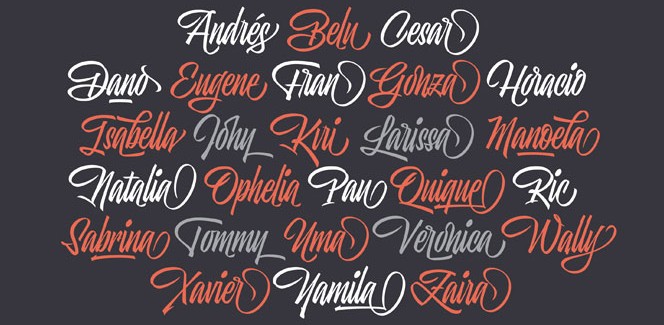
Skill font
Skill is the latest font released by the Argentine master of type design Maximiliano Sproviero. Once again it is like a lecture on the type design with the topic this time being brush calligraphy. Maximiliano uses his great experience to present us with a brush script that is a proof of the fact that the perfect results come with plenty of practice. The most important thing about this script is that it captures the soul of the pointed brush calligraphy and the freedom it gives. And this freedom comes together with a lot of passion, movement and expressiveness. On top of that, Skill font is as sweet, sexy and wild as you can imagine. It can be used with a great success in different kinds of projects like book covers, T-shirts, tattoos, music and fashion related items, posters, magazines, etc.
When talking about freedom and movement, we should immediately note the great amount of time and effort Maximiliano spent to make sure that this font provides them both. In order to achieve that, he designed plenty of ligatures and alternates per glyph that can be accessed using OpenType savvy software.
This can be done best using the Skill style, which is the most complete one. The other style – Skill Standard provides better legibility at the expense of less ligatures and only basic alphabet.